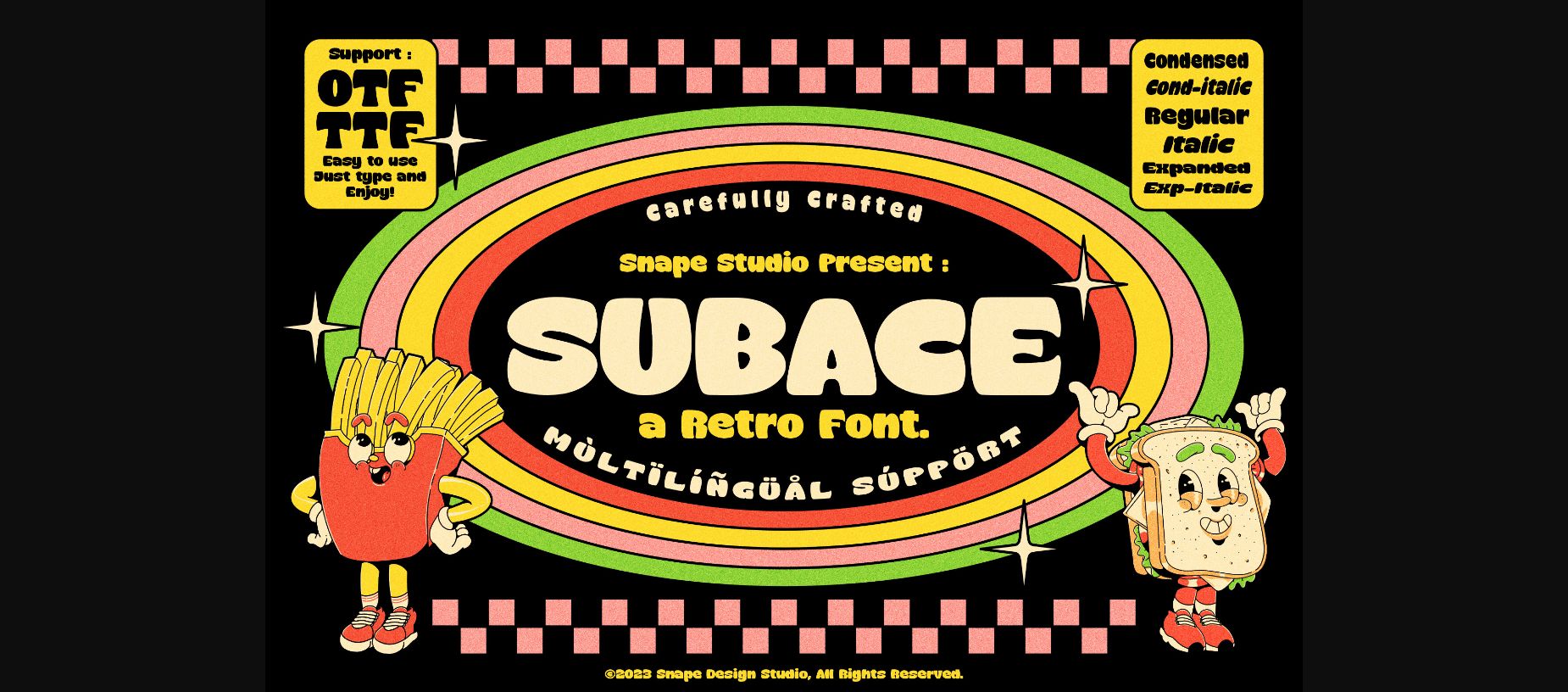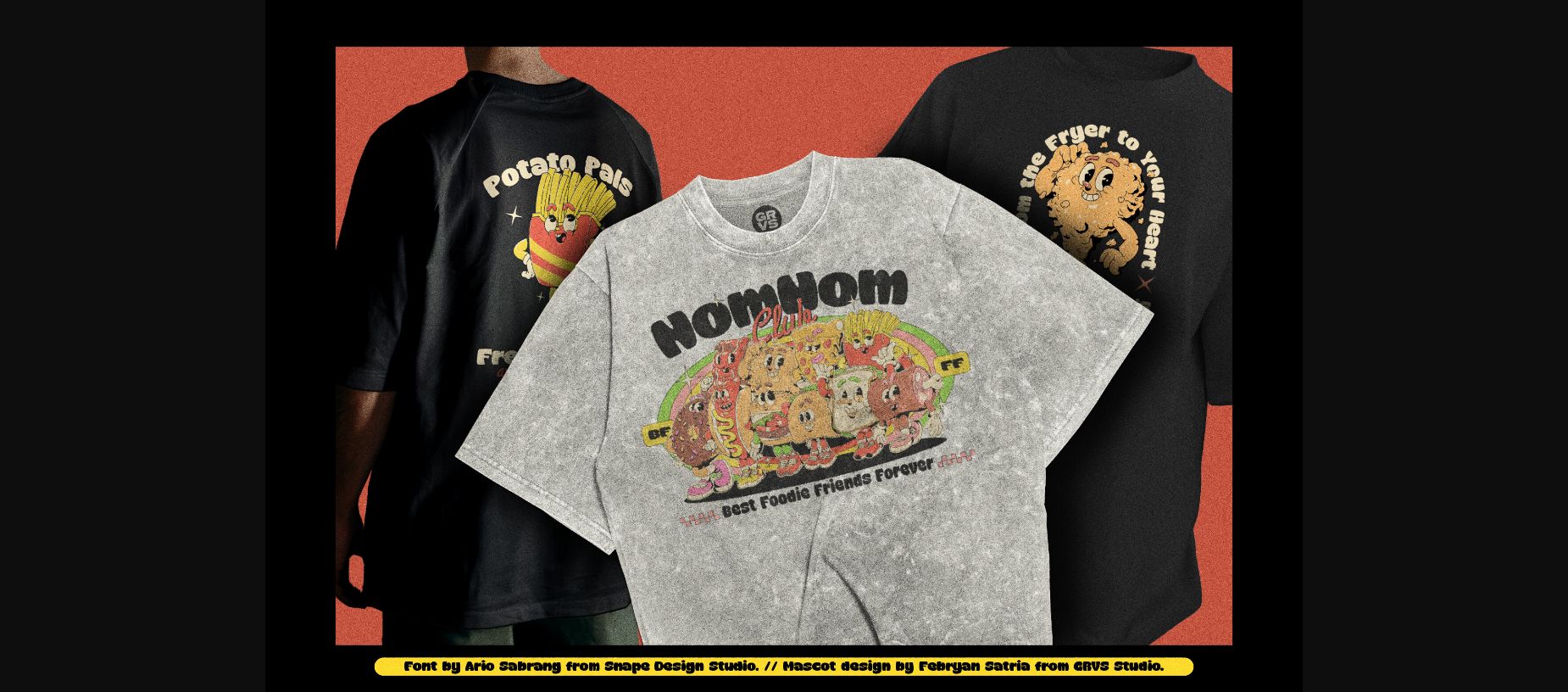
About Subace Font
Introducing “Subace”, a timeless typeface that seamlessly blends vintage charm with modern design aesthetics. This carefully crafted font exudes a sense of nostalgia, reminiscent of the iconic typography styles from the mid-20th century. With its smooth curves, soft edges, and a touch of playful elegance, this Retro Rounded Font is the perfect choice for designers and creatives seeking to evoke a sense of classic sophistication in their projects.